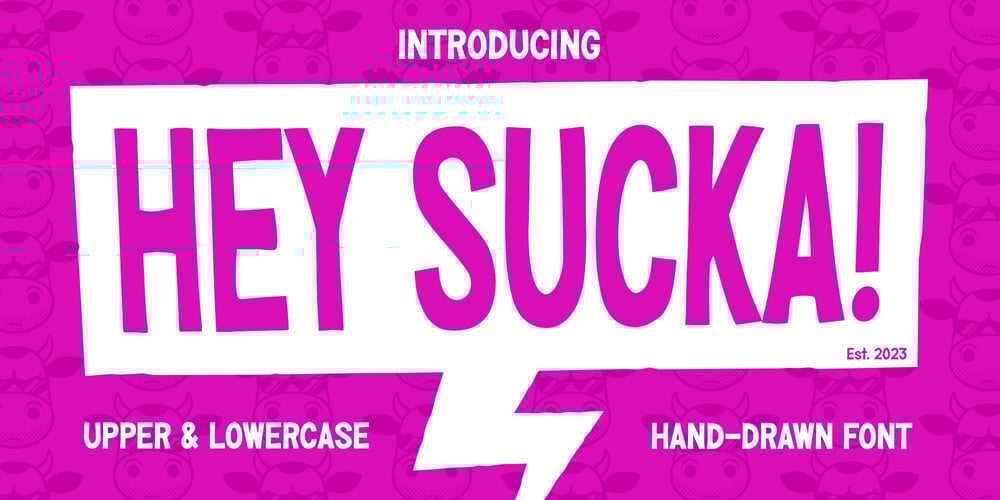
Hey Sucka
Hey Sucka font
Hey Sucka Font Family was designed by Martyn Dawson and published by Stationjack. Hey Sucka contains 1 styles and family package options. Hey Sucka is a hand drawn, bold and playful cartoon like font. Upper and lowecase, numbers, punctuation and special characters including advanced latin, basic cryllic and advanced cryllic character sets. This font would be ideal to use on product packaging, magazines, posters, t-shirts.